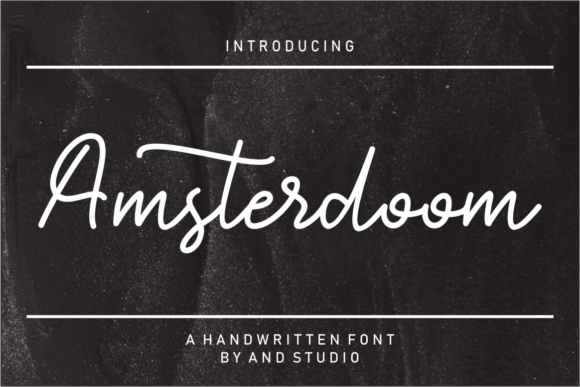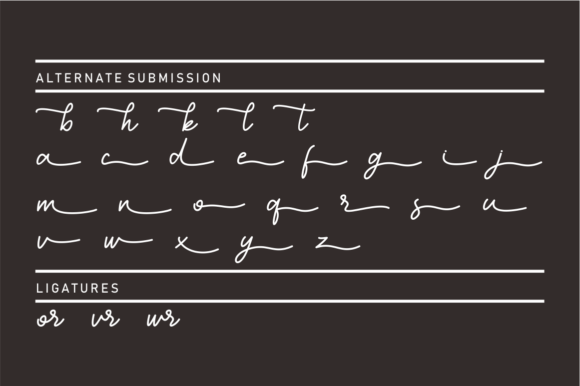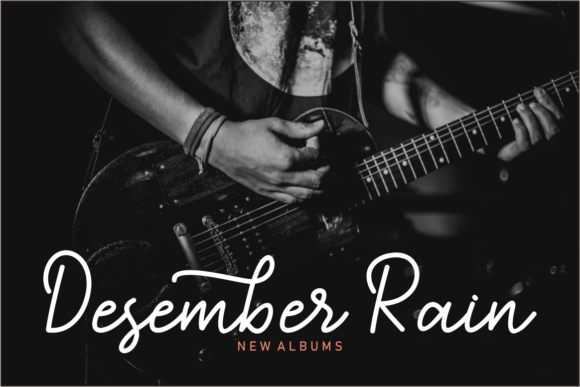
About Amsterdoom Font
“Amsterdoom” is a delicate and elegant handwritten font that captivates with its versatile style, making it an excellent choice for a wide range of design projects. Whether you’re working on logos, branding, titles, social media posts, advertisements, product packaging, or any creative endeavor, this font’s adaptability ensures it can contribute to spectacular designs.
The well-crafted characters of “Amsterdoom” add a touch of sophistication and clarity to your text, making it suitable for various applications across both digital and print media. Its versatility allows it to seamlessly blend into different design contexts, providing a timeless and elegant appearance.
The inclusion of PUA encoding is a valuable feature, allowing for easy access to a variety of glyphs and ligatures. This feature enhances the font’s customization options, providing designers with the flexibility to personalize their projects and explore creative possibilities.
In summary, “Amsterdoom” is more than just a font; it’s a versatile design tool that brings delicacy and elegance to a wide array of creative projects. Its adaptability makes it perfect for different design purposes, ensuring that your creations stand out and leave a lasting impression.